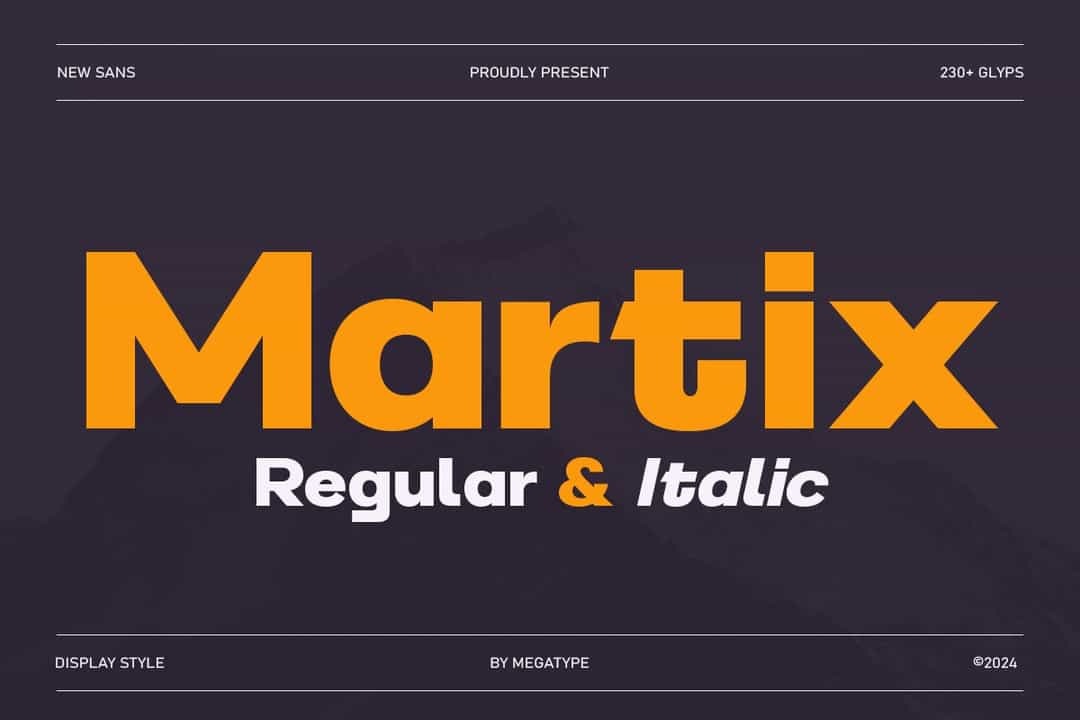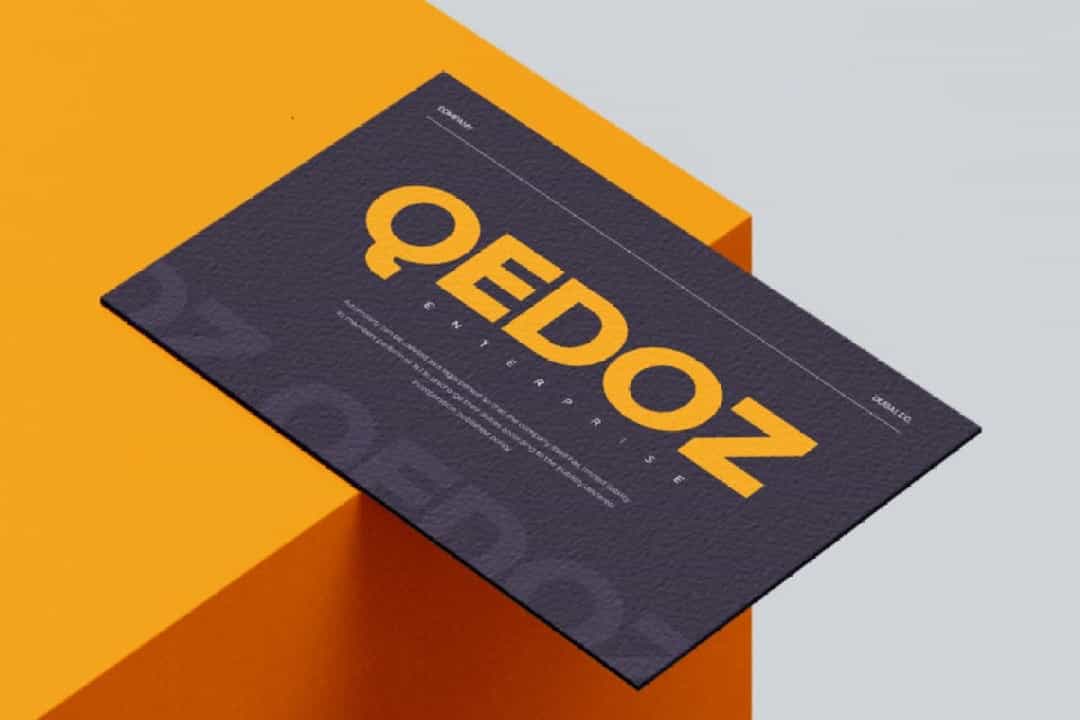
Martix is a bold unique modern style display sans serif font with modern and unique appearance, and geometrical elements and industrial approach. Martix is available in regular and italic variants so as to enhance the versatility and enable it to fit well into various graphic design environments.